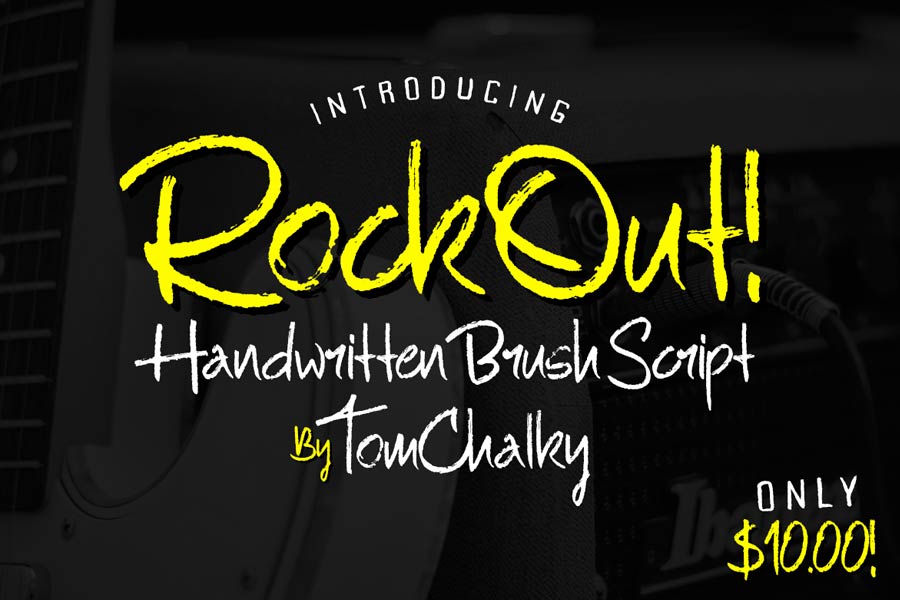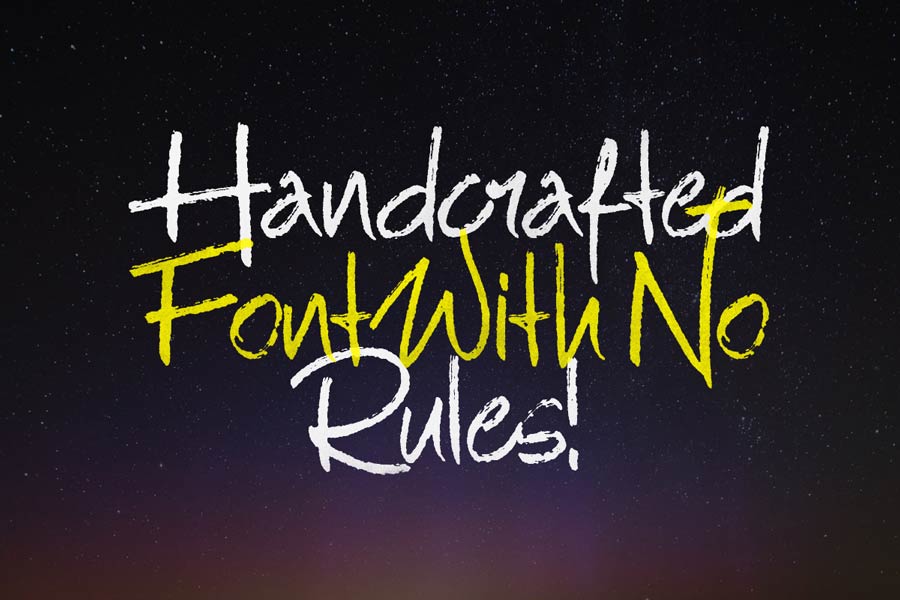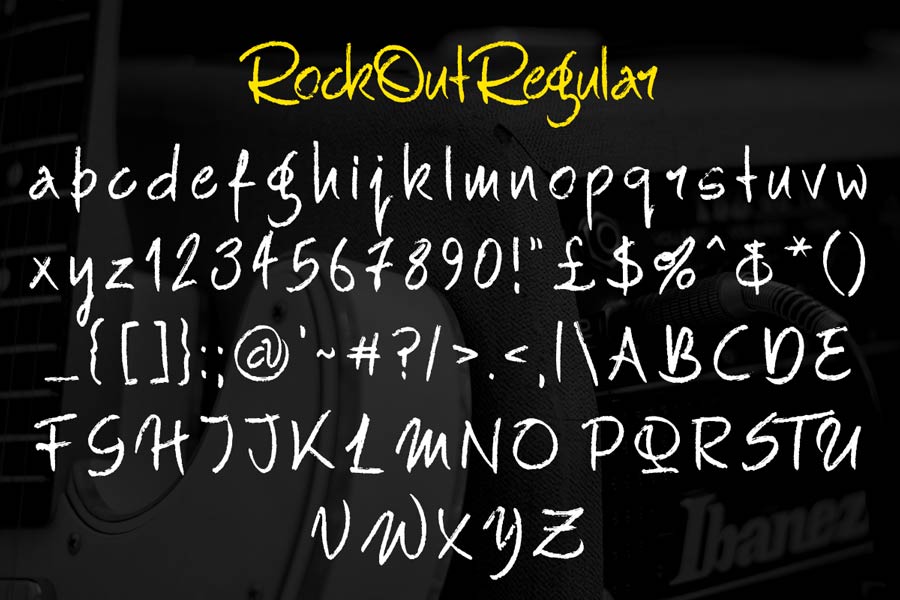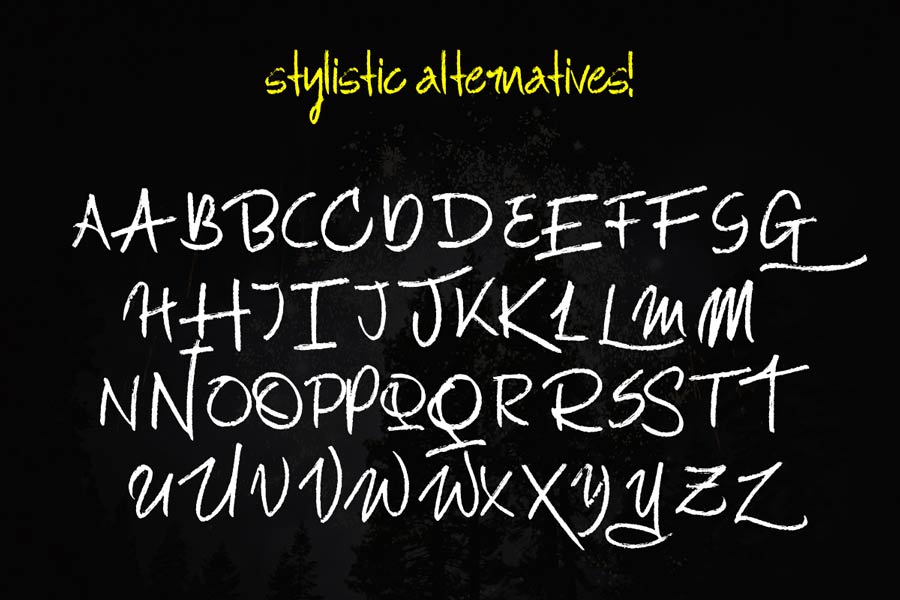
RockOut Script is a loud and expressive handwritten style font that is free to download on Creative Market for this week only. This font is suitable for designs that requires attention, and also designs for street, youngster urban designs.
- Designer: Tom Chalky
- Category: Calligraphy/Brush, Handwriting, Script